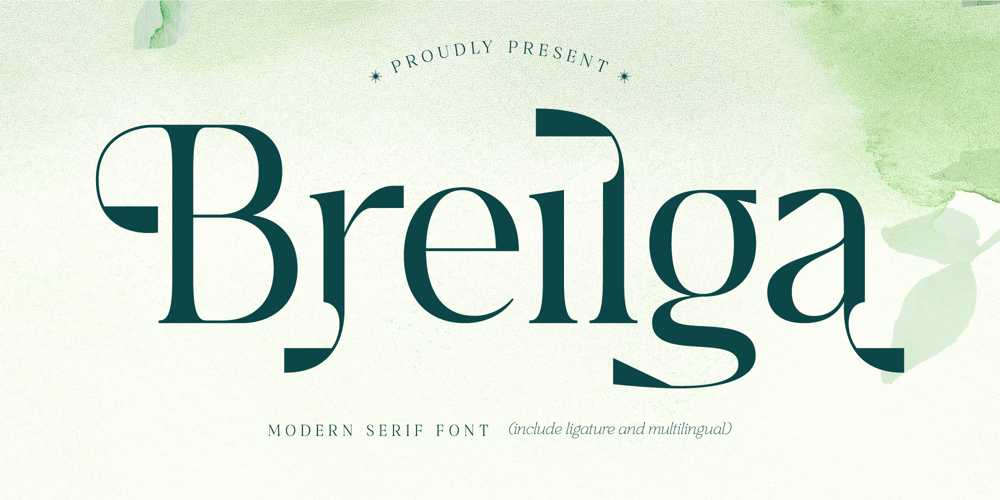
Breilga
Breilga font
Breilga Font Family was designed by Heru Utama Putra and published by Letterena Studios. Breilga contains 2 styles and family package options. Breilga is a modern and classic typeface that has its own unique style and modern look. This typeface is perfect for an elegant & luxurious logo, book or movie title design, fashion brand, magazine, clothes, lettering, quotes, and so much more.